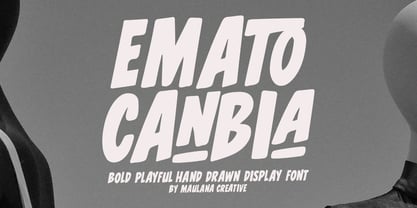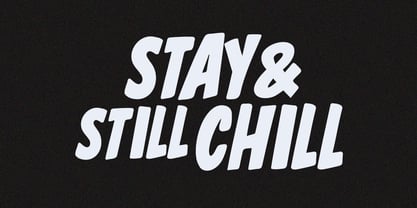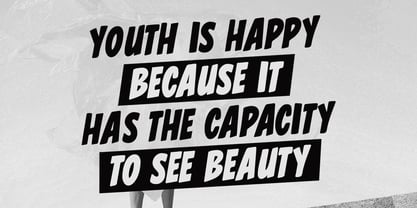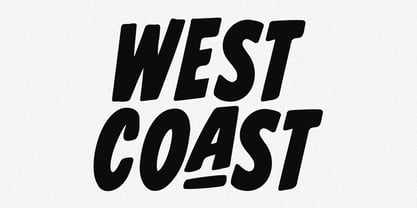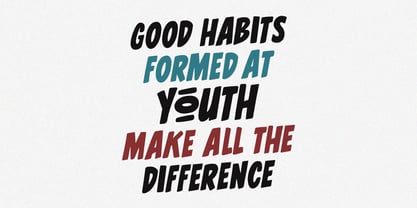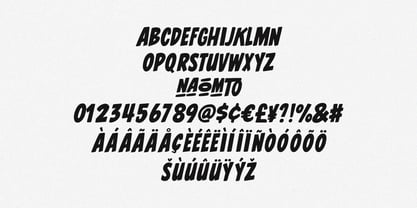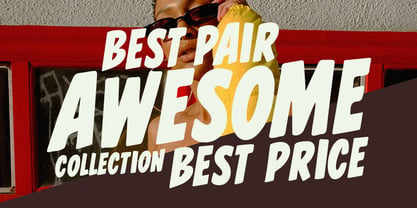
MC Emato Canbia
by Maulana Creative
The MC Emato Canbia Font Family was designed by Gilang Maulana and published by Maulana Creative. MC Emato Canbia contains 1 styles. More about this family
Elevate your creative projects with Emato Canbia, a bold and expressive hand-drawn display font designed to bring character and energy to every layout. Created by Maulana Creative, this font features thick, organic strokes and a slightly slanted, quirky rhythm that instantly grabs attention. Emato Canbia is perfect for designers looking for a "human touch" that balances modern aesthetics with a casual, funky vibe. Whether you are working on high-impact headlines, streetwear branding, or trendy social media graphics, this font provides a unique visual identity that stands out from the crowd. Best used for Branding and Logos, Social Media and many more.
Designers: Gilang Maulana
Foundry: Maulana Creative